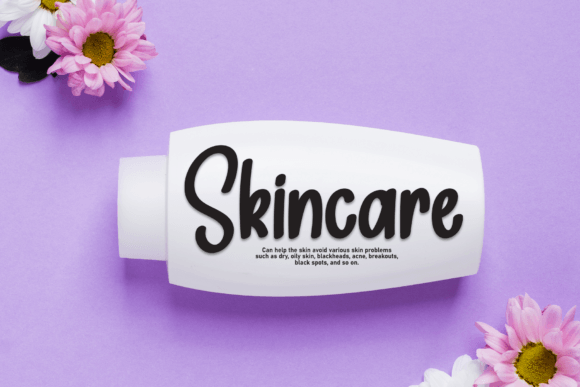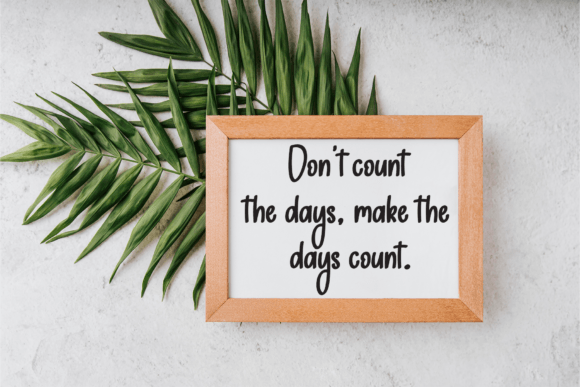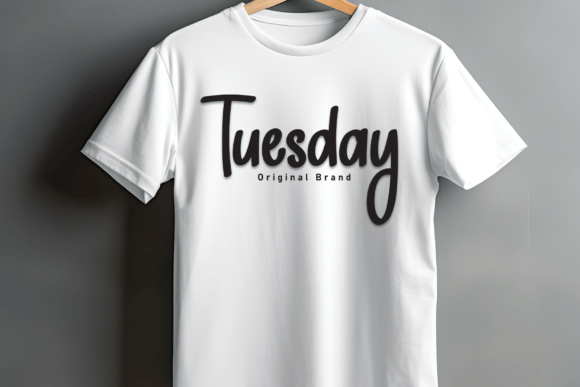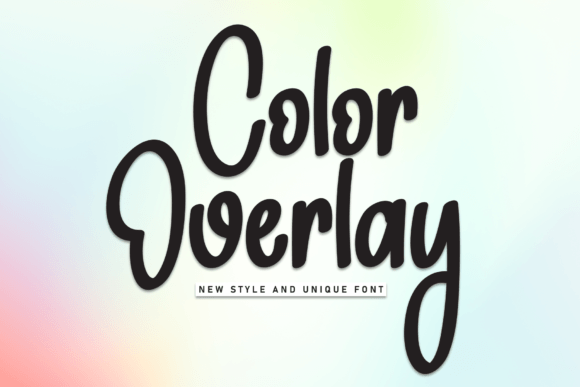
Introduction to Color Overlay Font
Color Overlay is a design effect that adds a bold, hand-drawn color layer over text.
It makes the font stand out with vibrant colors and a creative, personal touch .
Key Features of Color Overlay Font
Why Choose Color Overlay Font?
Color Overlay Font offers exceptional quality and versatility, making it a valuable addition to your design toolkit. Whether you’re creating for personal projects or commercial use, Color Overlay Font delivers professional results.